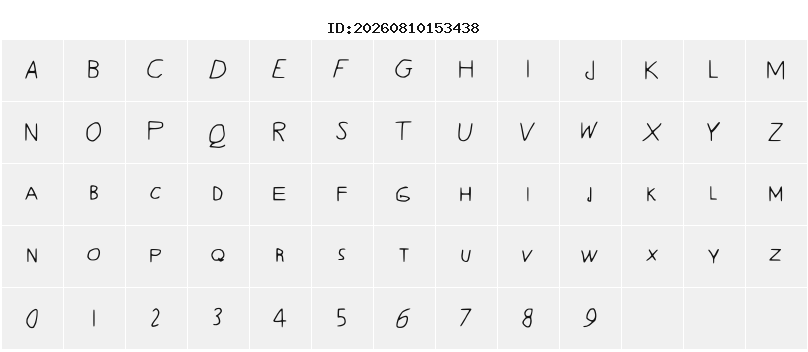
Quentrell Preview
About Quentrell.ttf
Quentrell.ttf is a modern, elegant sans-serif font designed for ultimate readability and visual harmony. Perfect for branding, headlines, web design, and print materials.